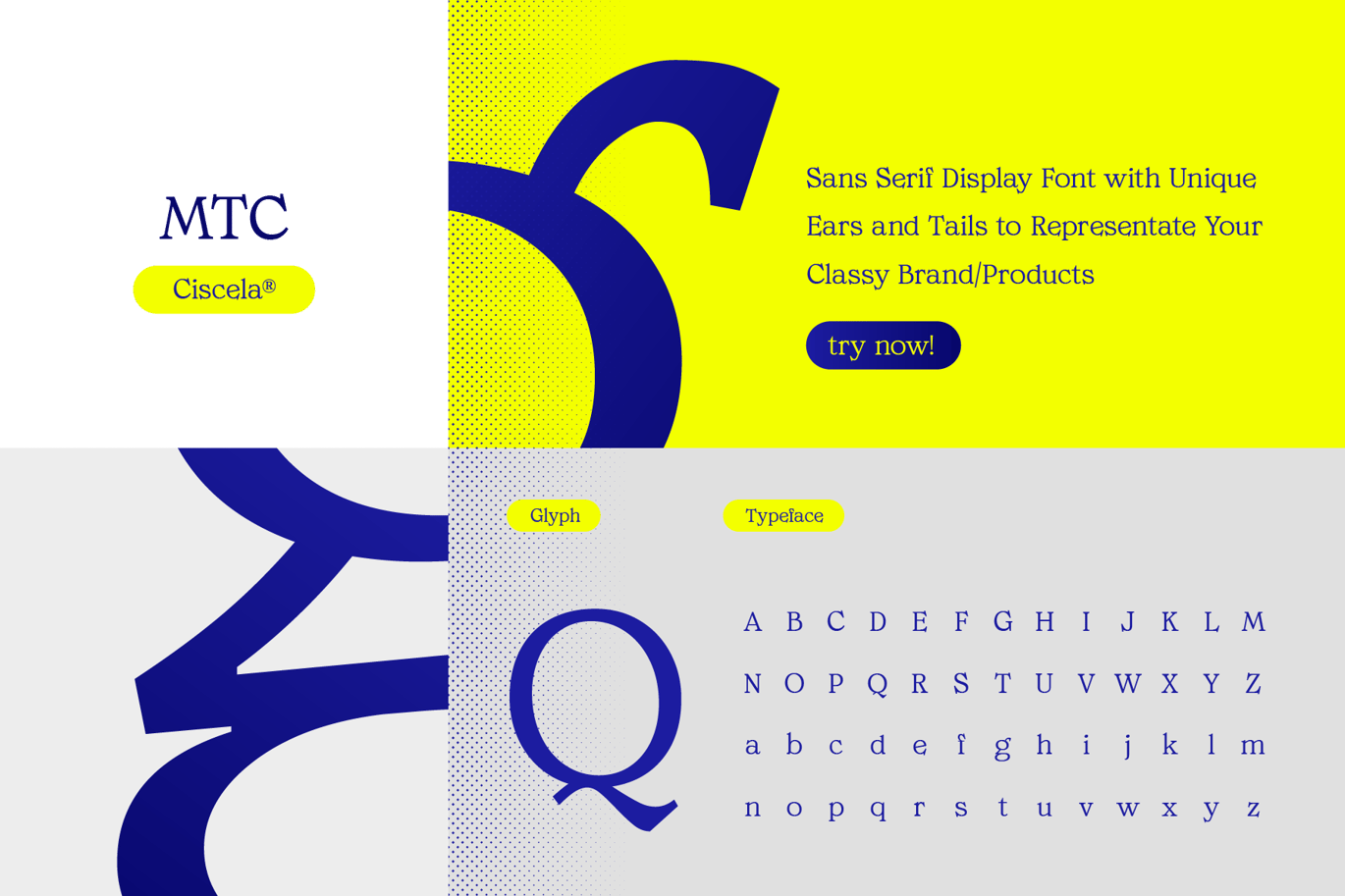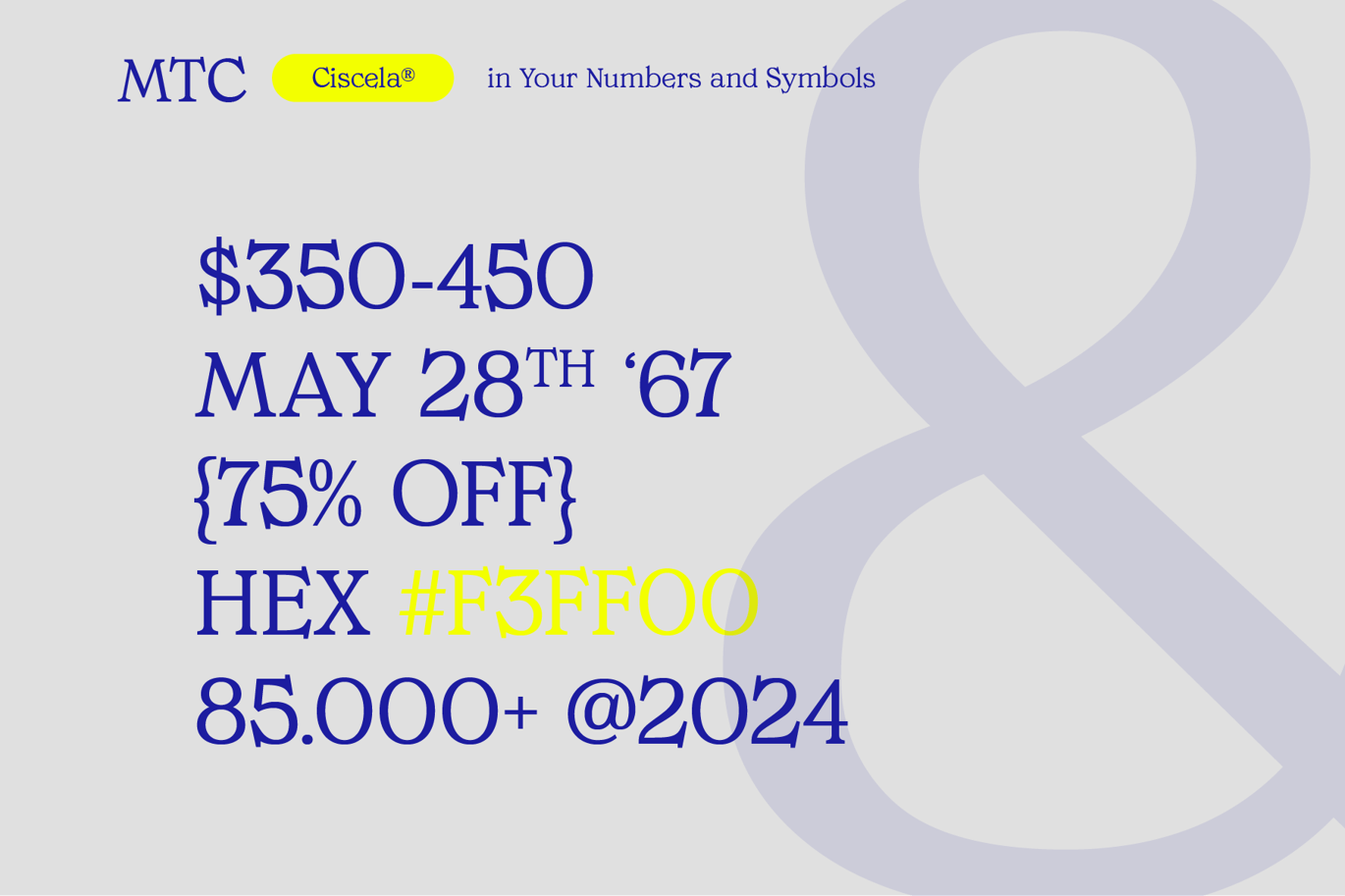
Ciscela – Unique Serif Display Font
Ciscela – Unique Serif Display Font is a versatile typeface ideal for various projects, including logos, branding, posters, blog headers, advertisements. The free version includes a full set of uppercase and lowercase letters, available in OTF format.